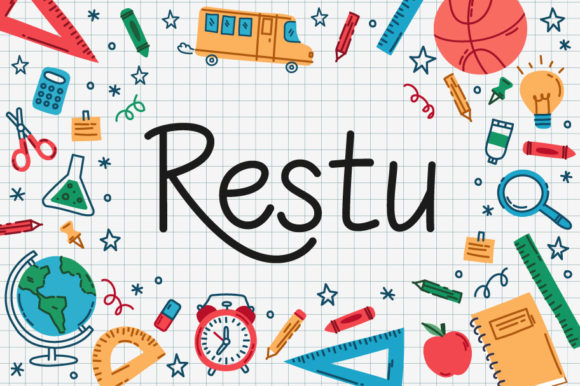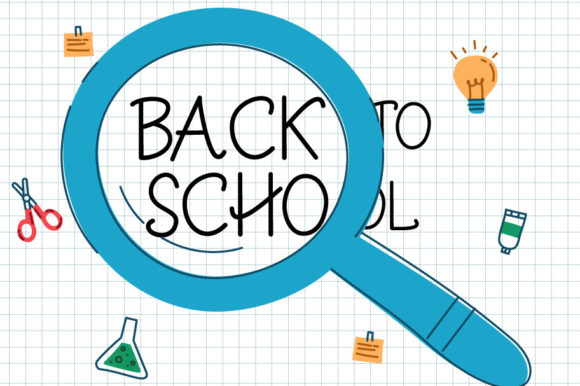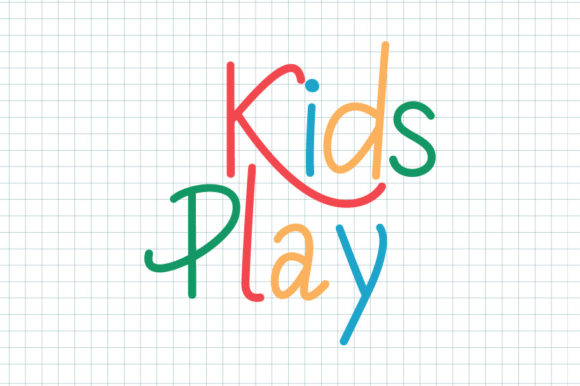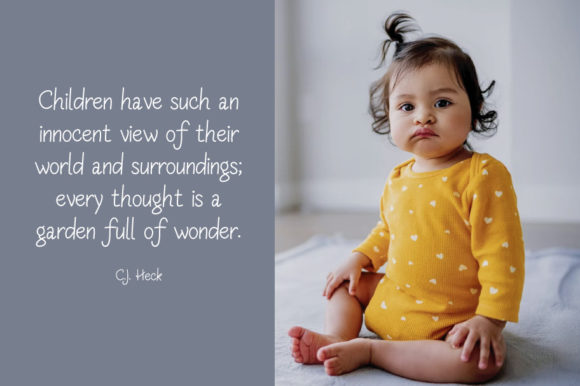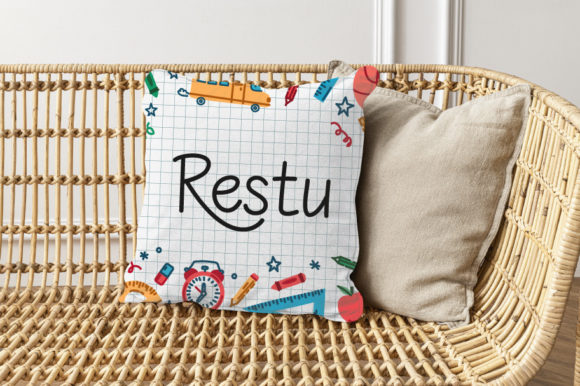
Restu Font
About Restu Font
Restu is a simple, quirky and adaptable handwritten font. It is PUA encoded which means you can access all of the glyphs and swashes with ease! The only limit is your imagination.